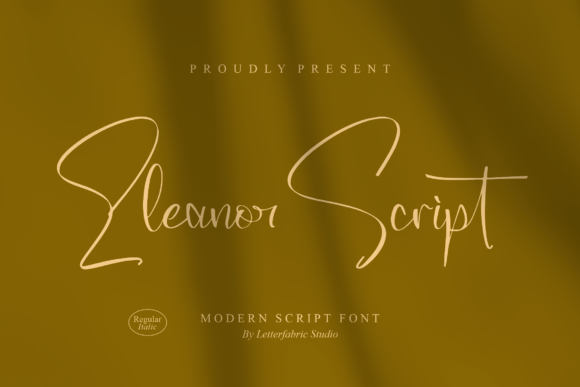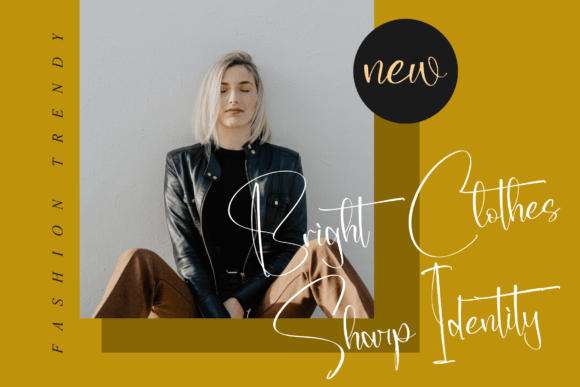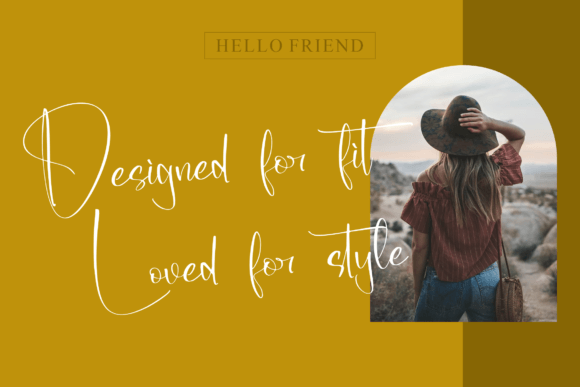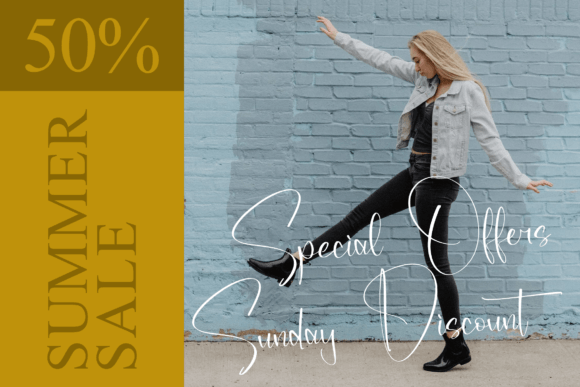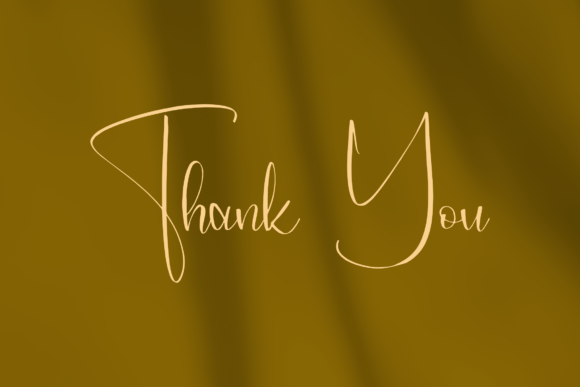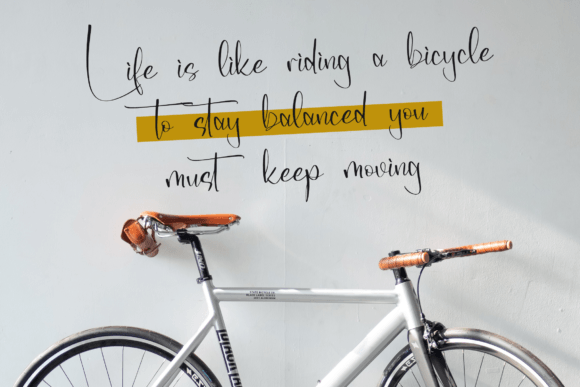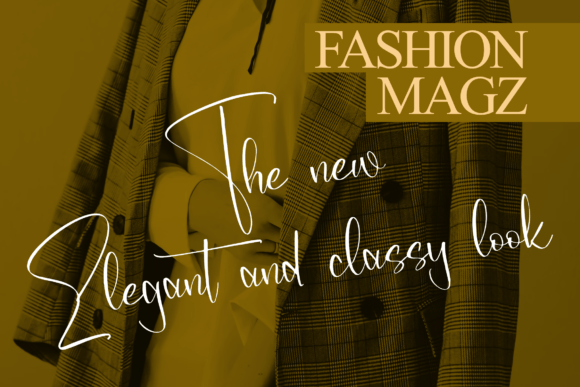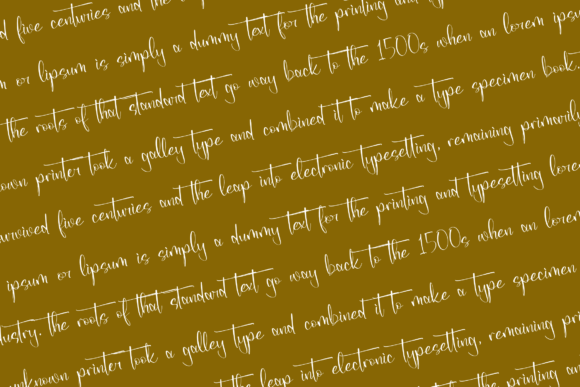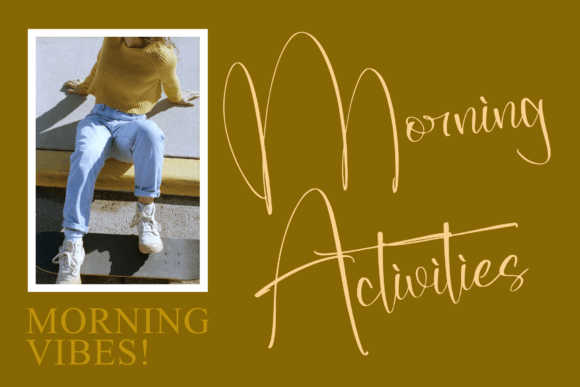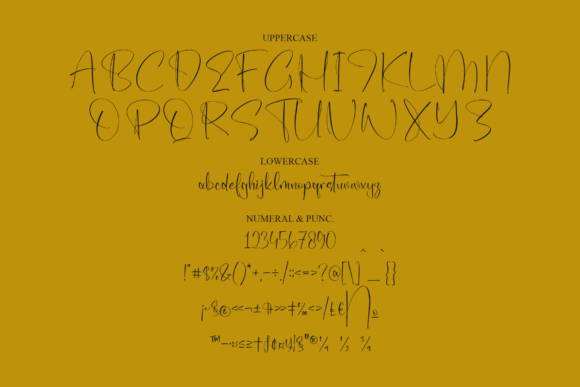
Eleanor Script Font
About Eleanor Script Font
“Eleanor Script” is an enchanting handwritten font that offers a touch of elegance and charm to your design projects. With its versatile script style, this font is well-suited for a wide range of applications, making it a valuable addition to your typography toolkit.
The allure of “Eleanor Script” lies in its ability to convey a sense of romance and sophistication through its handwritten characters. The font’s letters possess a unique and enchanting quality that enhances the visual appeal of your designs. Whether you’re working on greeting cards, headlines, or various other creative endeavors, “Eleanor Script” adds a touch of romanticism to your projects.
This font’s versatility allows it to shine in different contexts and applications. It can be used effectively for crafting eye-catching greeting cards, where its elegant script style elevates the sentiment of your messages. Additionally, “Eleanor Script” is a great choice for creating captivating headlines, making your text stand out with its romantic feel.
The charm of “Eleanor Script” extends to a wide spectrum of design projects, making it suitable for various creative applications. Whether you’re designing invitations, branding materials, social media graphics, stationery, or any project that requires a touch of romance, “Eleanor Script” delivers the elegance and charm needed to make your designs truly special.
Incorporating “Eleanor Script” into your creative projects allows you to infuse a sense of romance and sophistication into your typography. Its enchanting and versatile style makes it an excellent choice for adding a touch of elegance and charm to your next design project, ensuring that it resonates with a romantic feel and captivates your audience. Embrace the enchantment of “Eleanor Script” in your next endeavor and elevate your typography to a new level of beauty and allure.